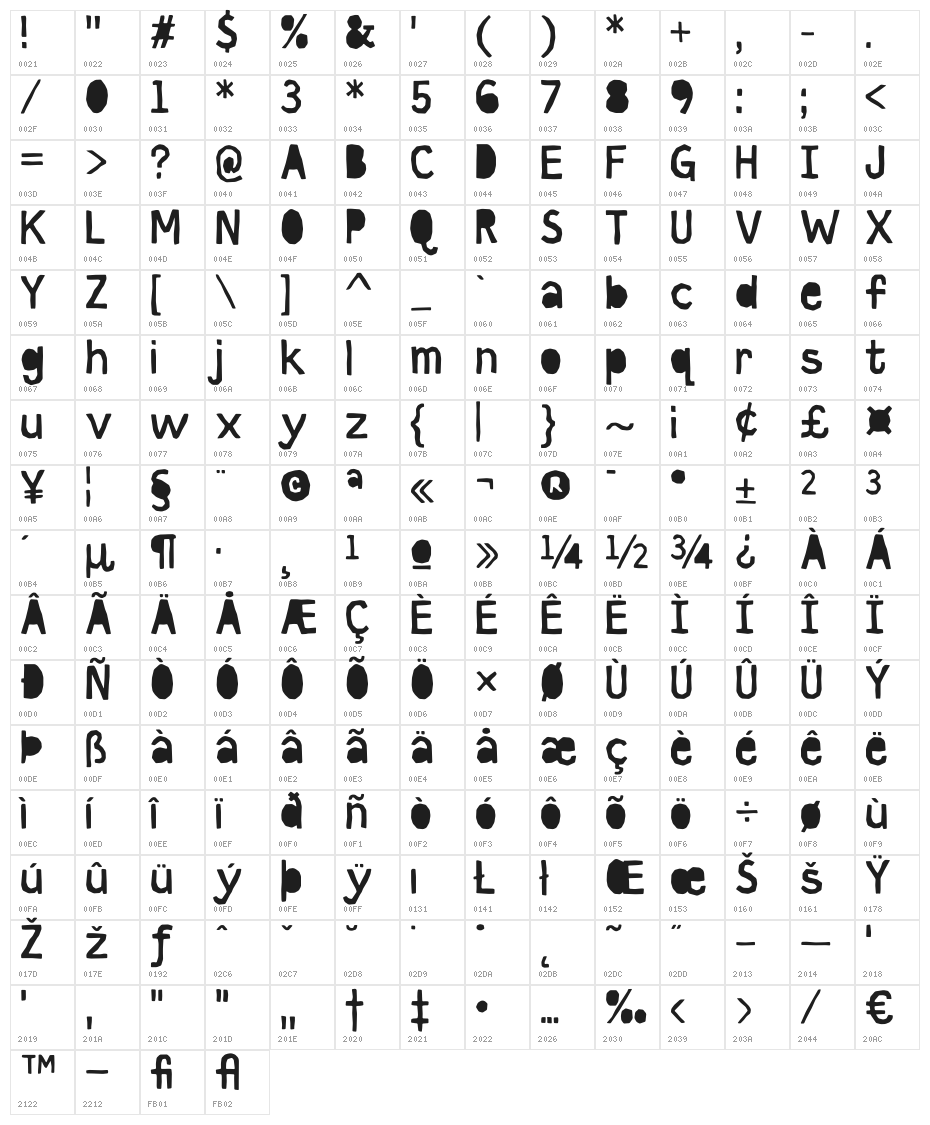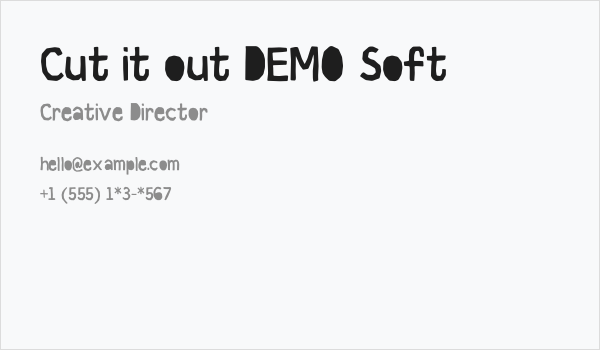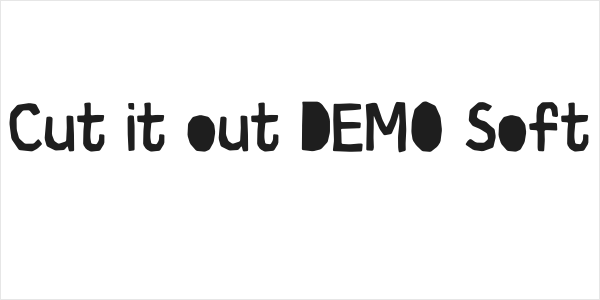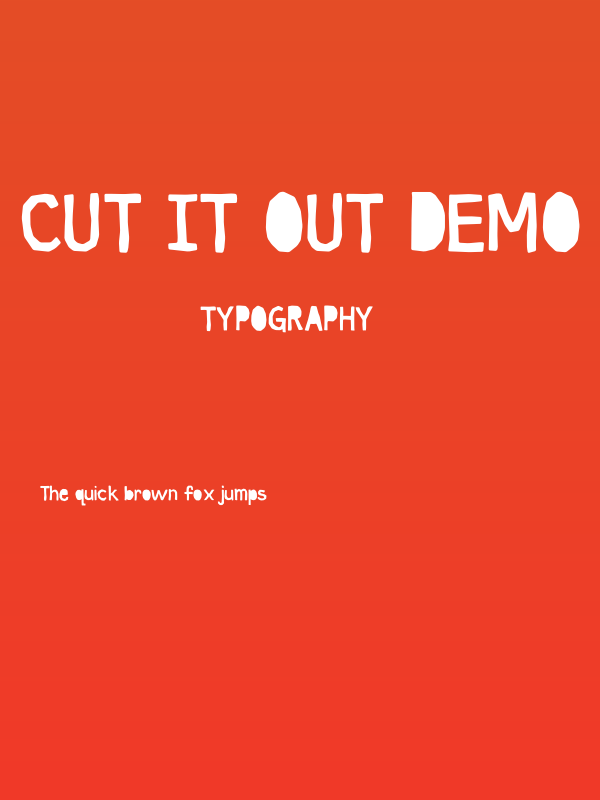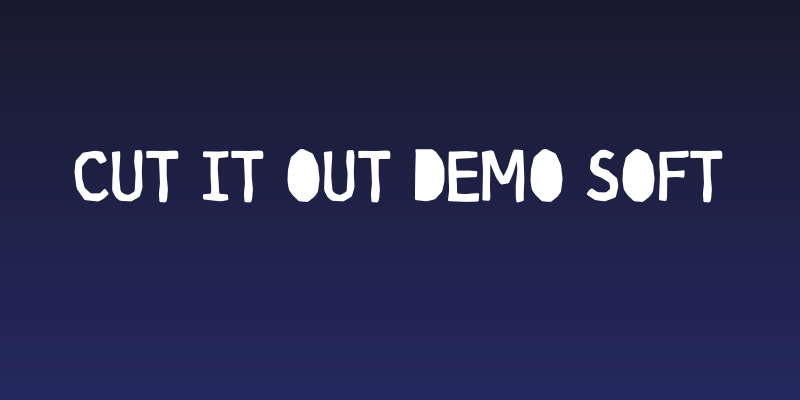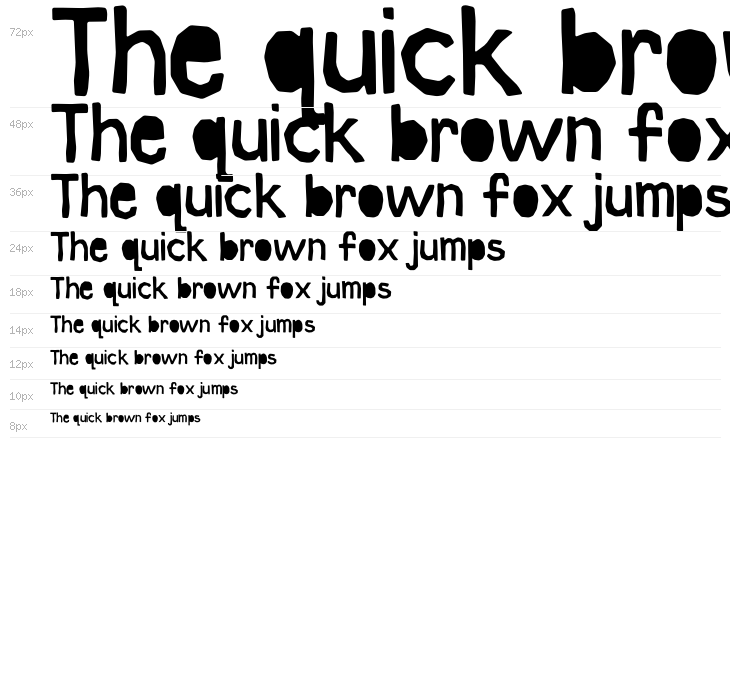
Cut it out DEMO Soft Font
Cut it out DEMO Soft Description
This font features a playful and bold design with a hand-cut appearance, giving it a unique and artistic flair. The characters are irregular and slightly uneven, adding to the handmade aesthetic. The uppercase and lowercase letters maintain a consistent style, with thick strokes and a slightly rough edge that suggests a crafted, tactile quality. The numbers and special characters follow the same design principles, ensuring a cohesive look across all glyphs. This font is ideal for projects that require a creative and informal touch, such as children's books, crafts, or artistic posters.
Overall StyleArtistic, Playful, Handmade
Use CaseHeadlines, Posters, Creative projects
Proposed ProjectsIdeal for children's books, crafts, artistic posters, and creative projects.